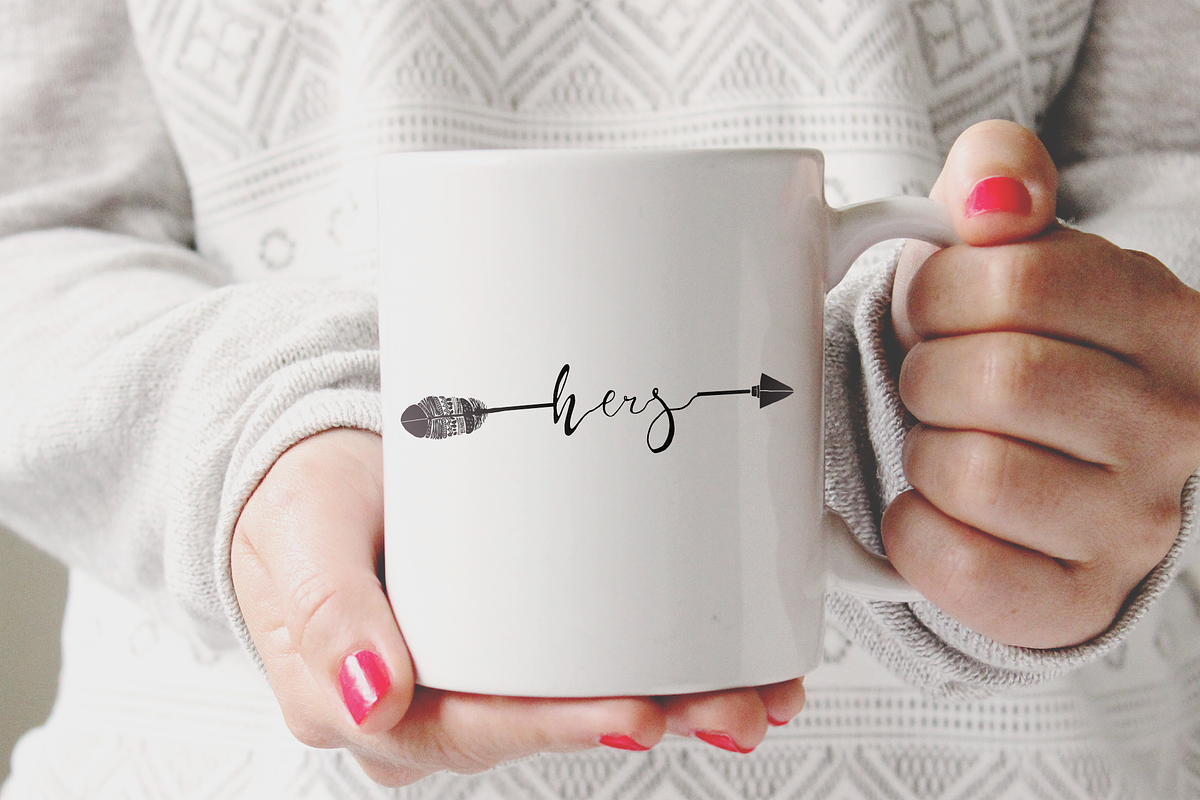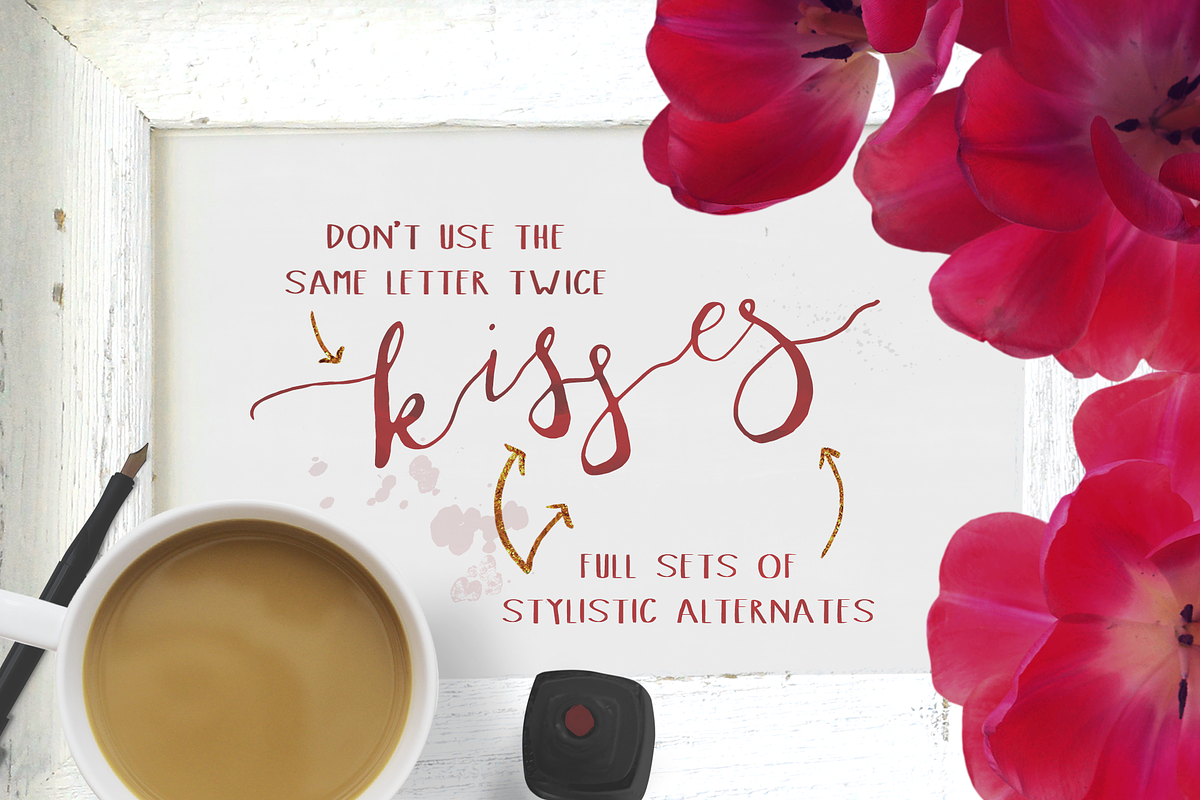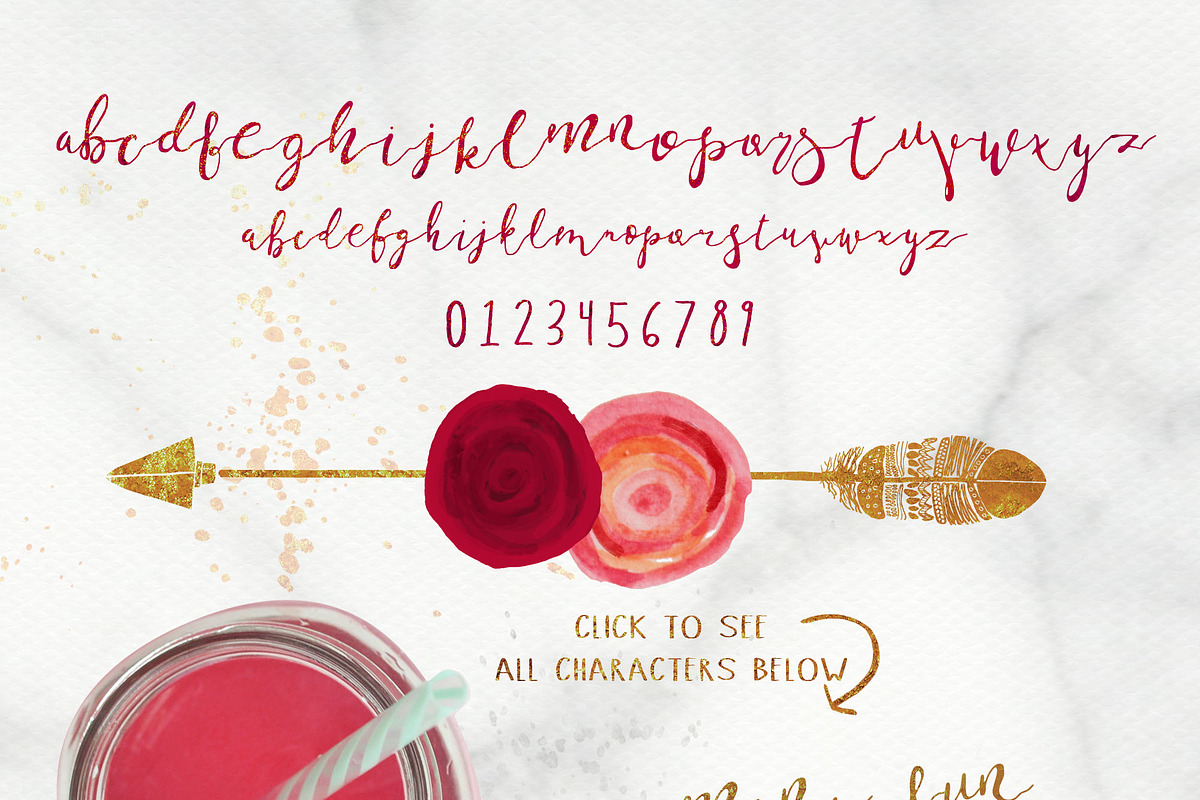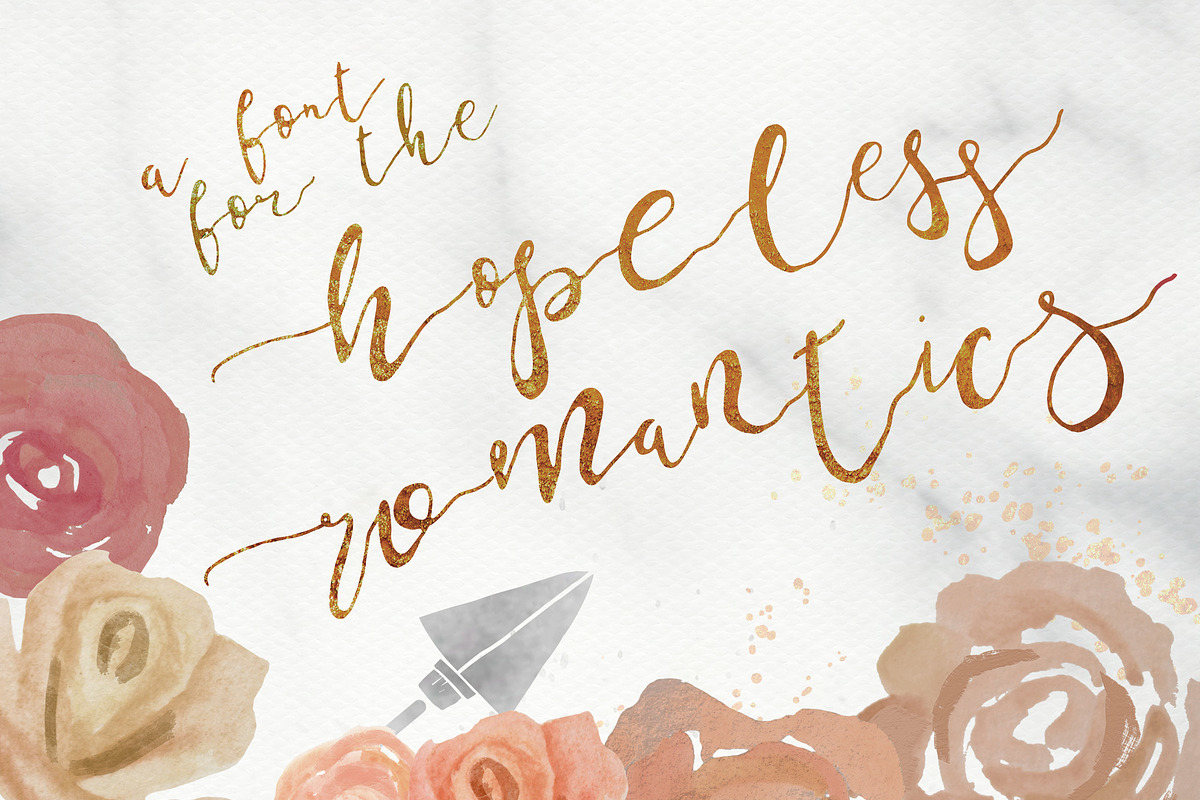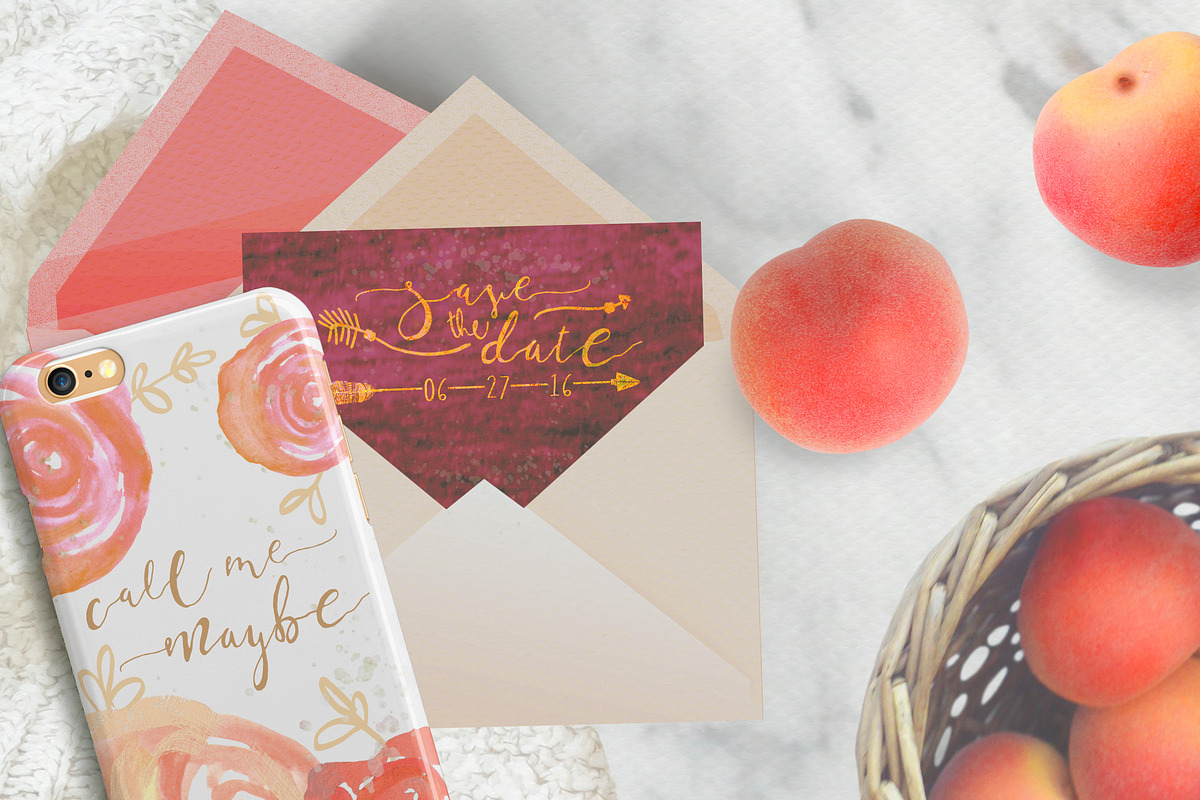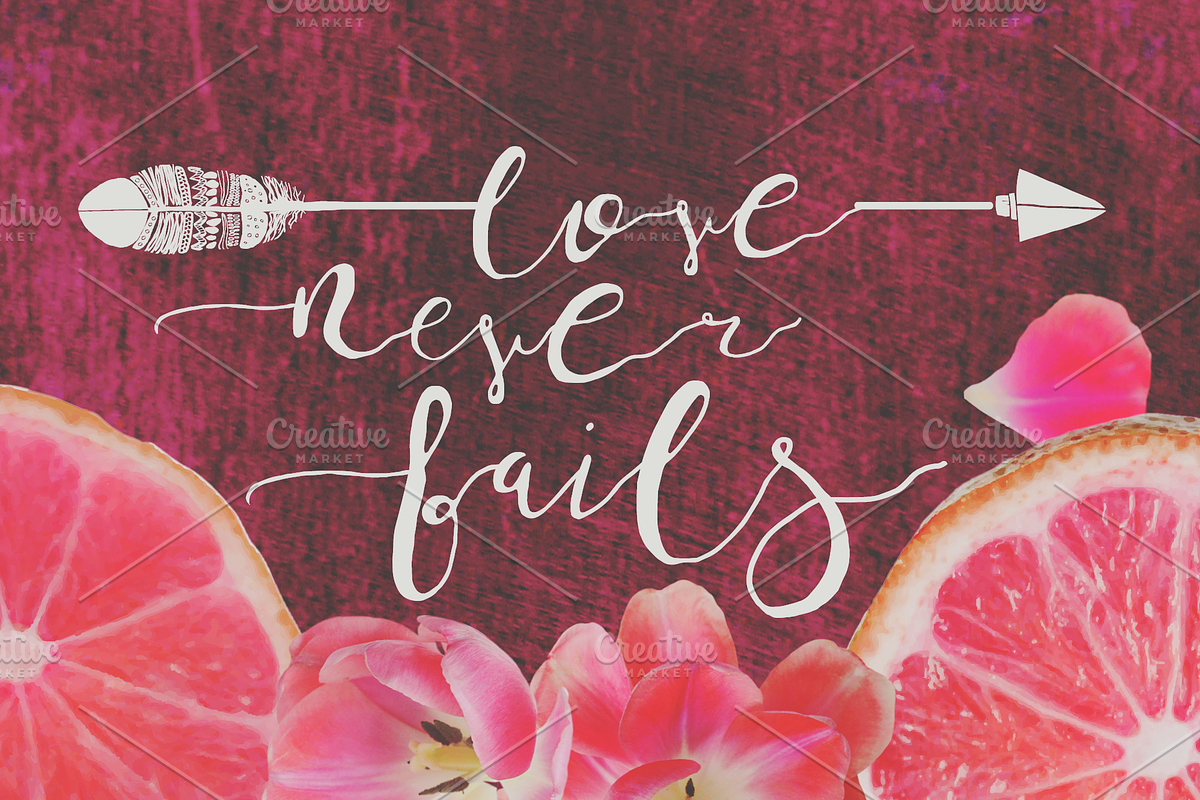
ArrowScript Font & Watercolor Bonus
ArrowScript Font & Watercolor Bonus by WeLivedHappilyEverAfter is a font selected for branding, posters, packaging, typography.
- It's a stunning, elegant font designed to be "imperfectly perfect." It has alternates for each letter, along with stylish swashes and hand d
- This font comes with a two sets of lowercase alternates, allowing you to switch letter styles as you type, for a fun, artistic flow that won
- Simply alternate between lower and uppercase, and pick whichever letter fits your mood best.
- There are alternates too, which are accessible by turning on 'Stylistic Alternates' in Photoshop, or though using any software with a glyphs
- A full set of stylistic alternates for lefthand uppercase, and righthand lowercase characters are also available.